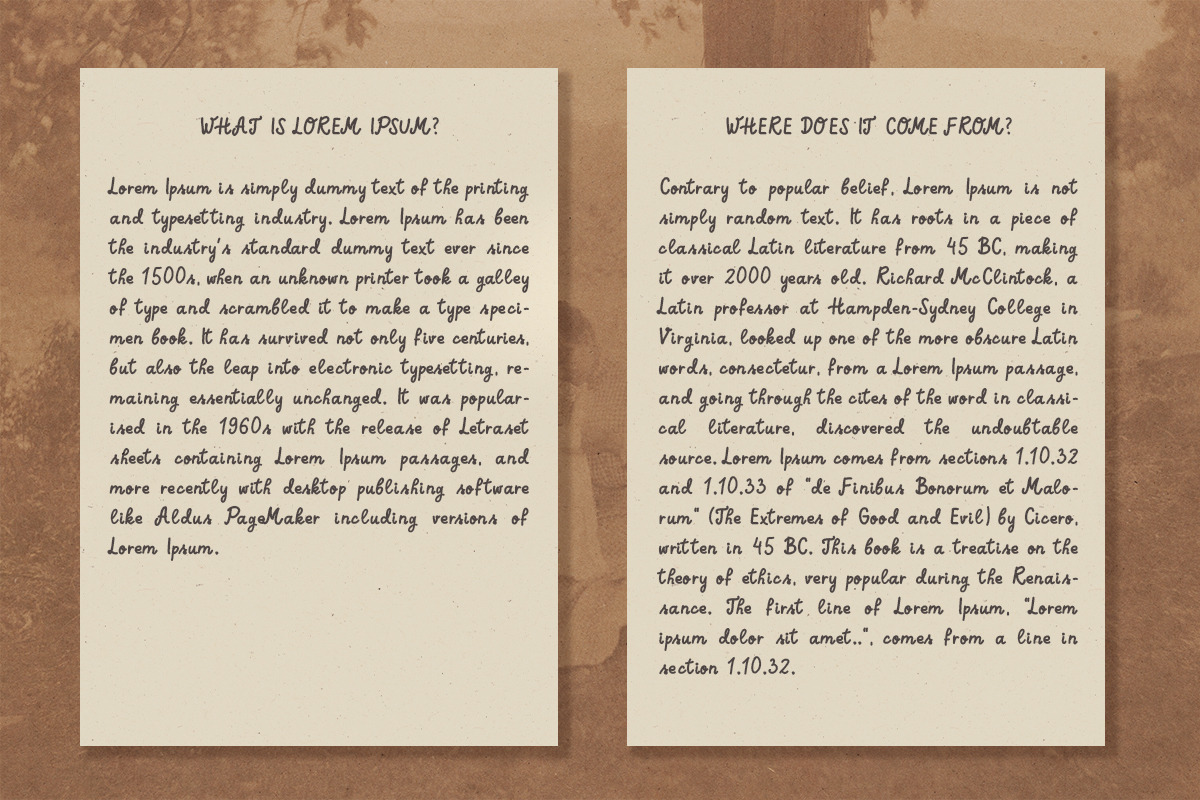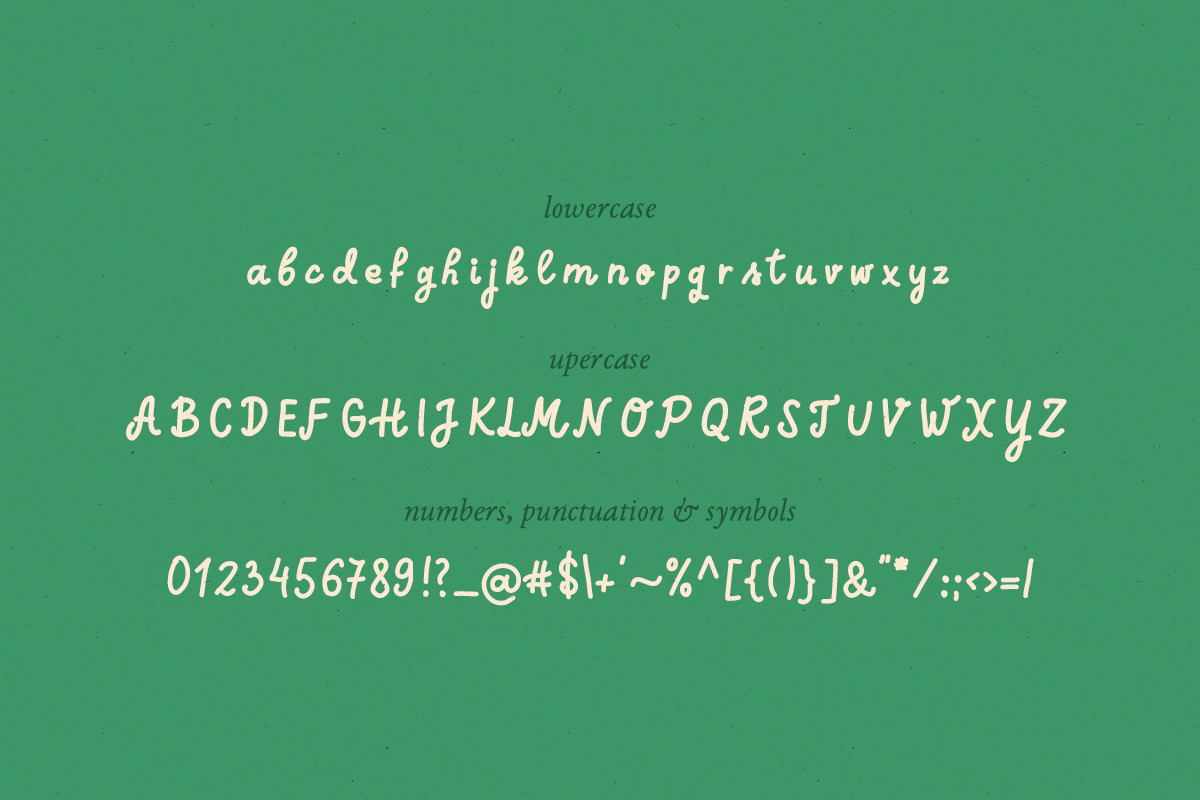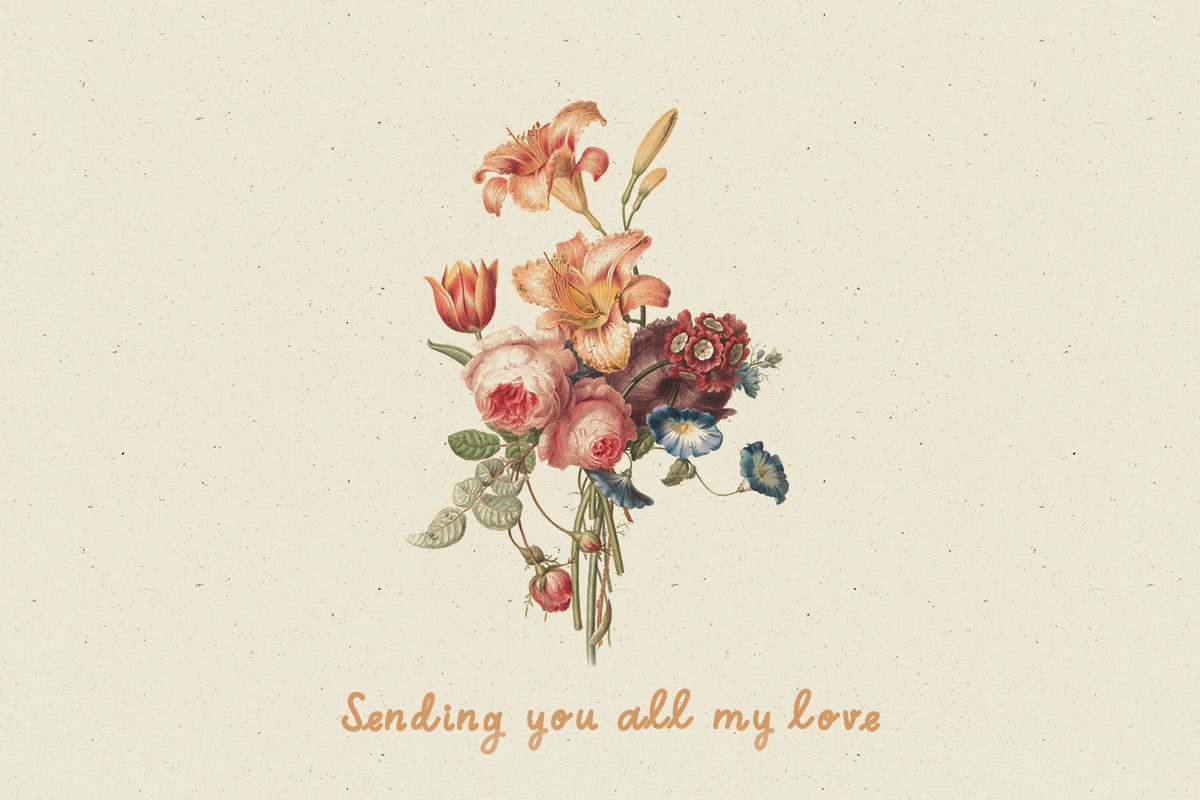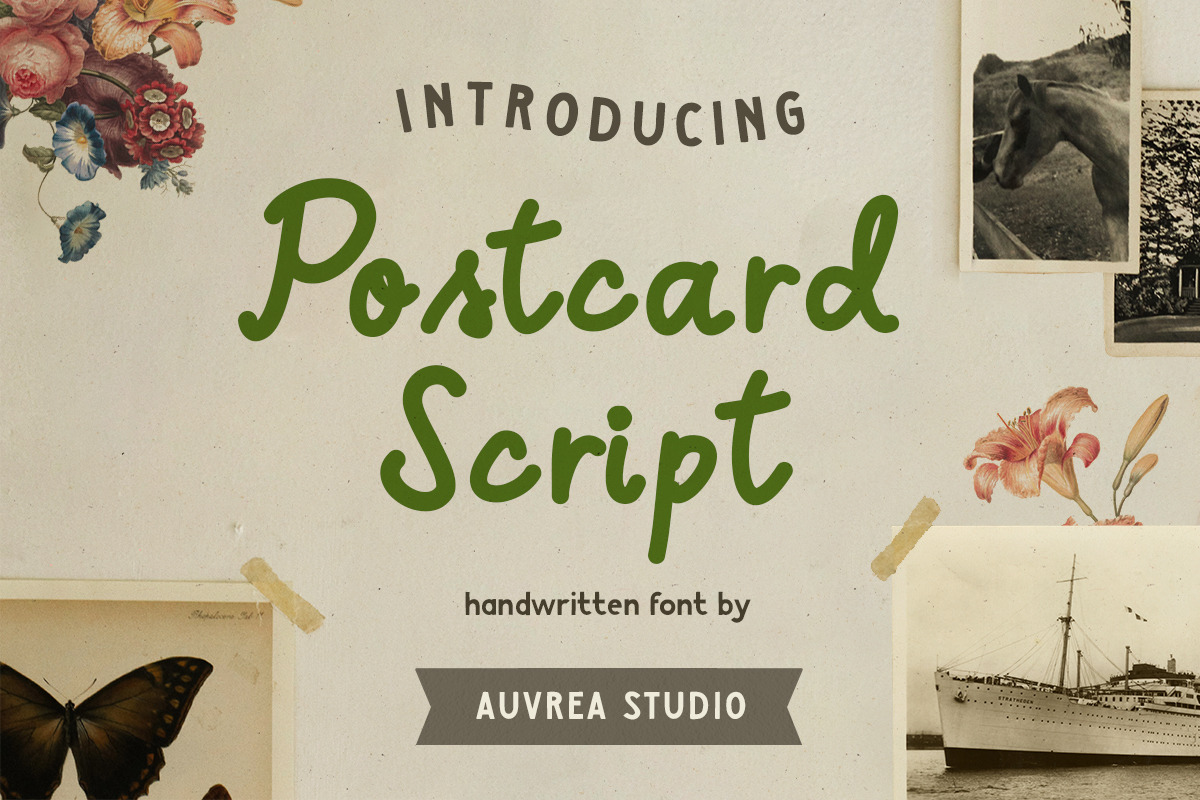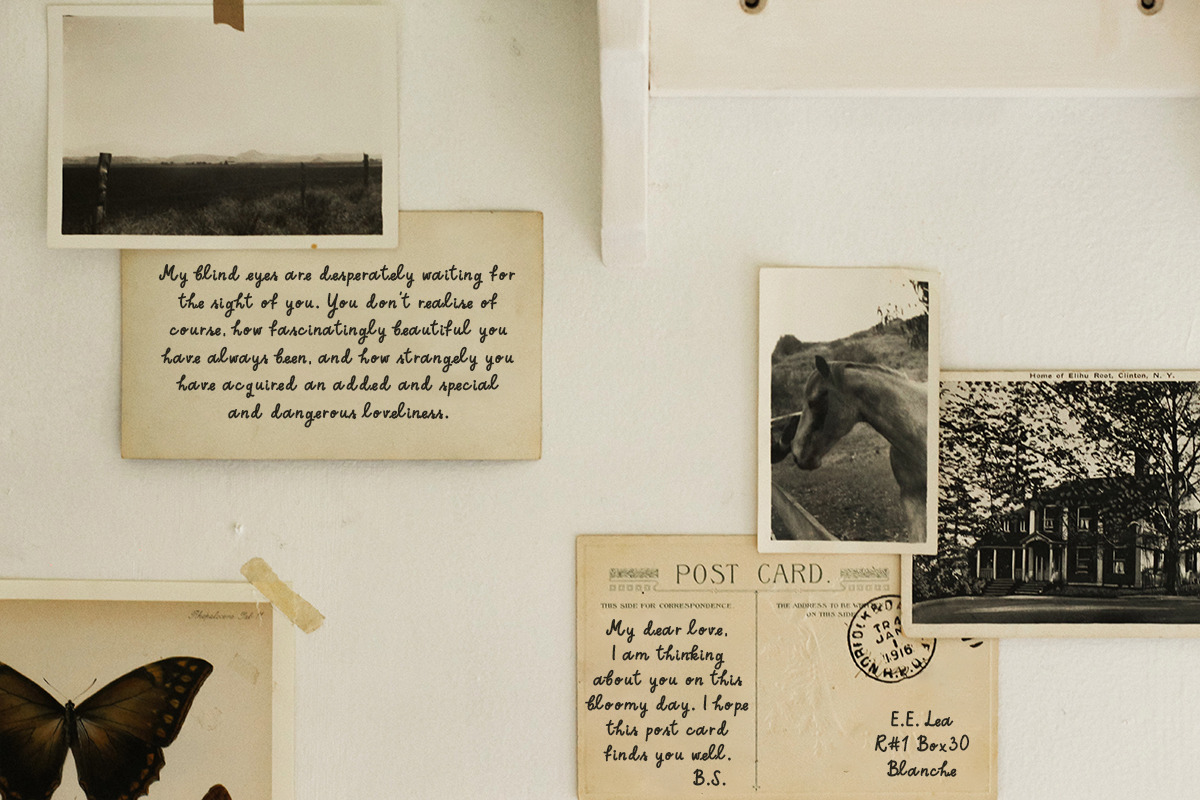
Postcard Script handwritten font
Inspired by postcards, old letters Postcard Script is based on manual hand writing. You can use this font for many purpose such as wedding invitations, vintage letter, even quotes, greeting cards and postcards, social media posts etc. Postcard Script handwritten feel will look personal and it can be used in a variety of applications.